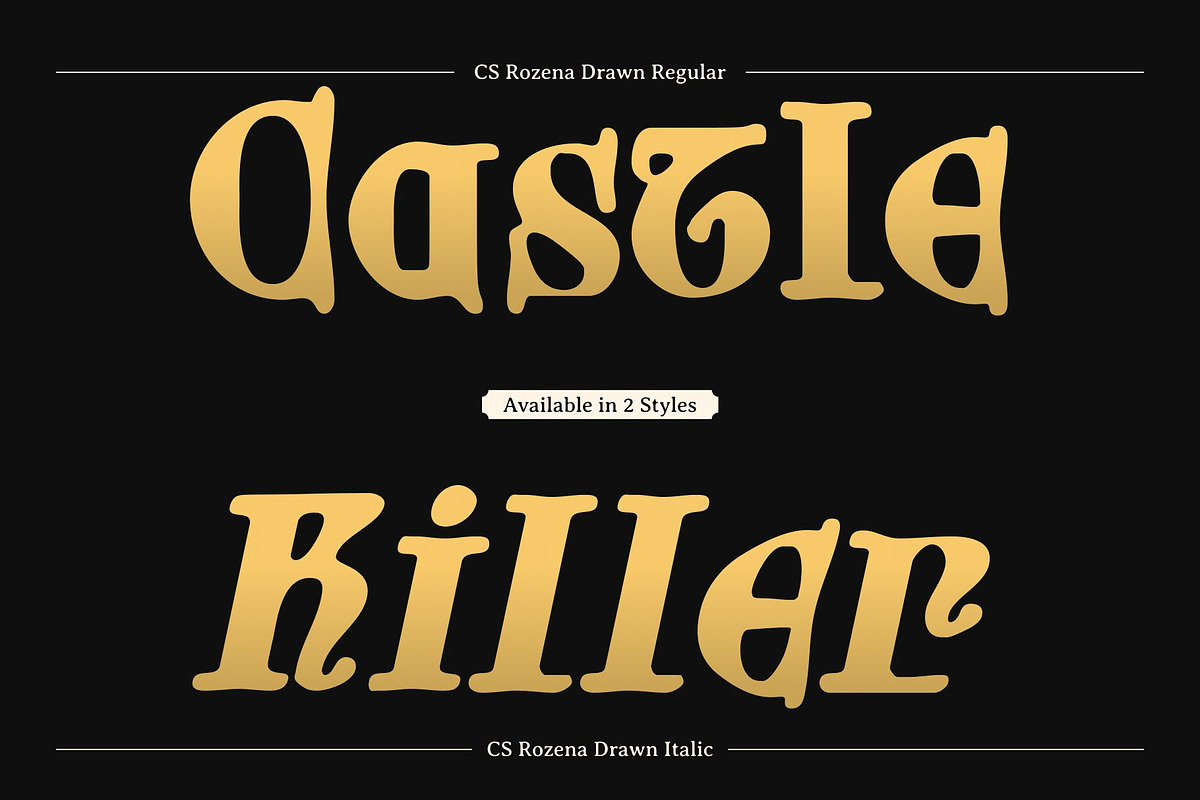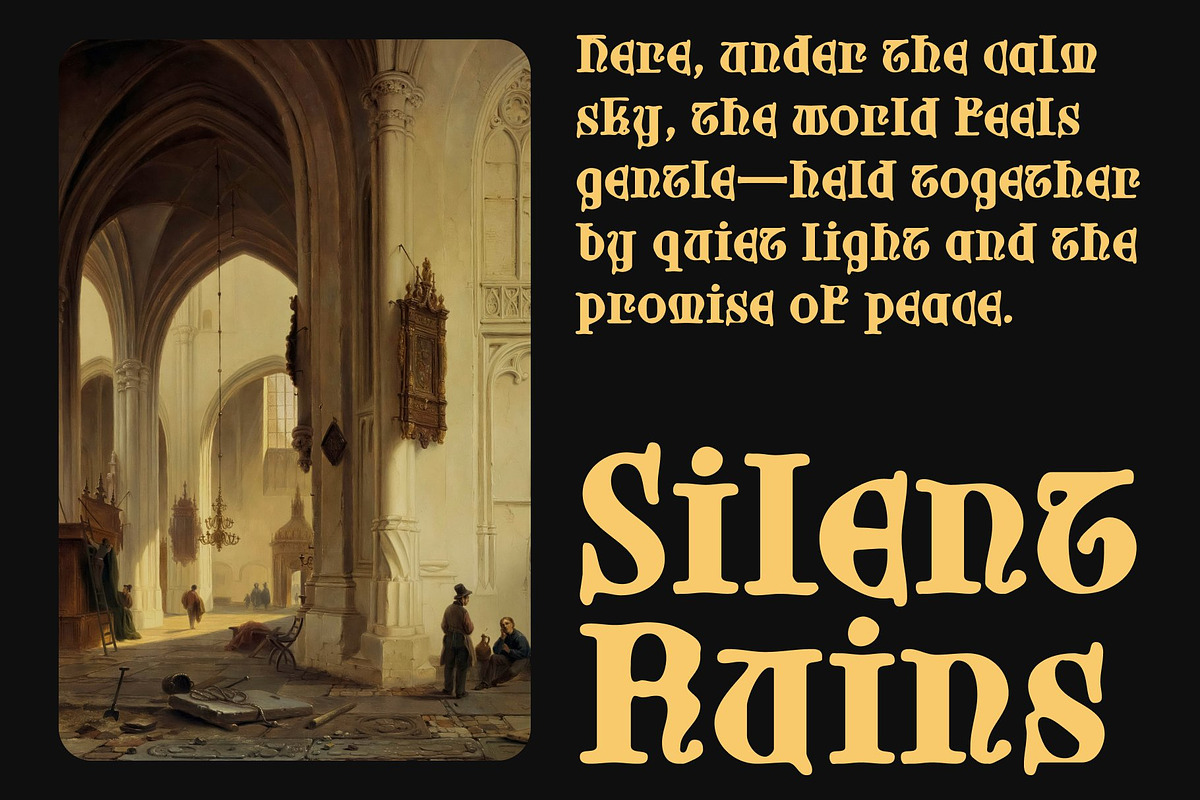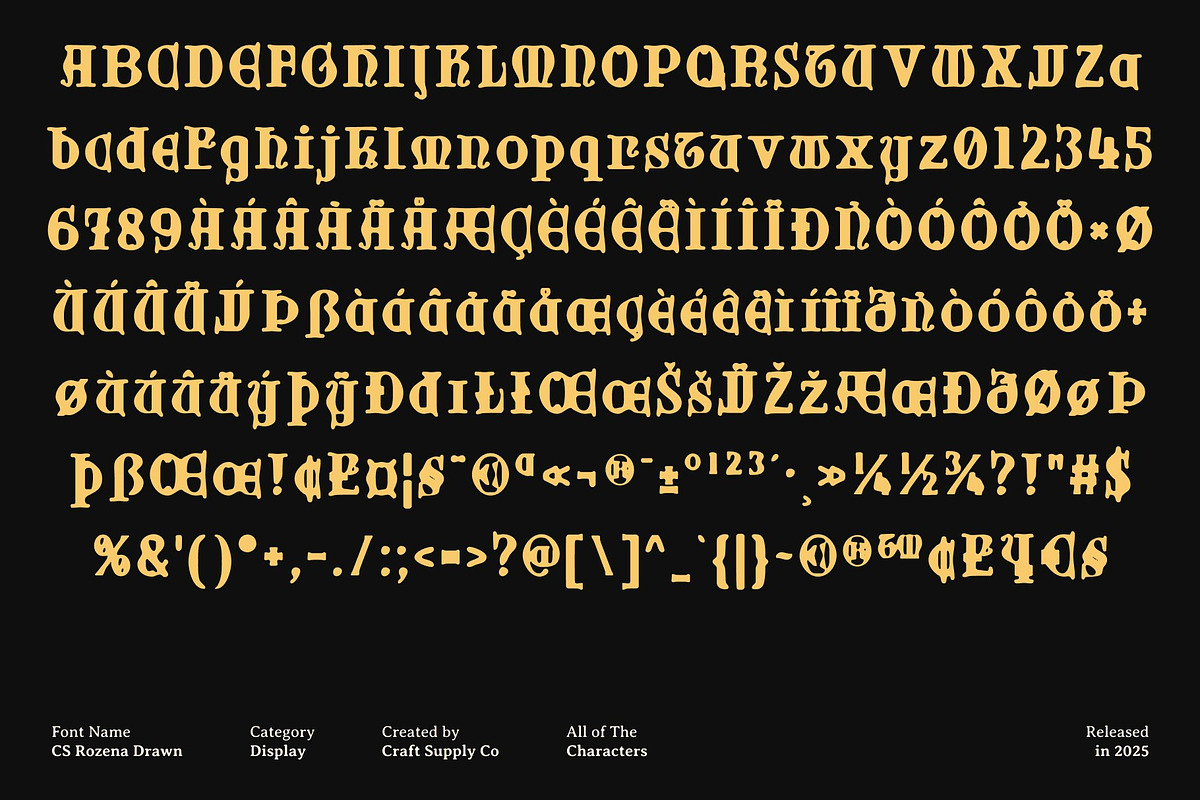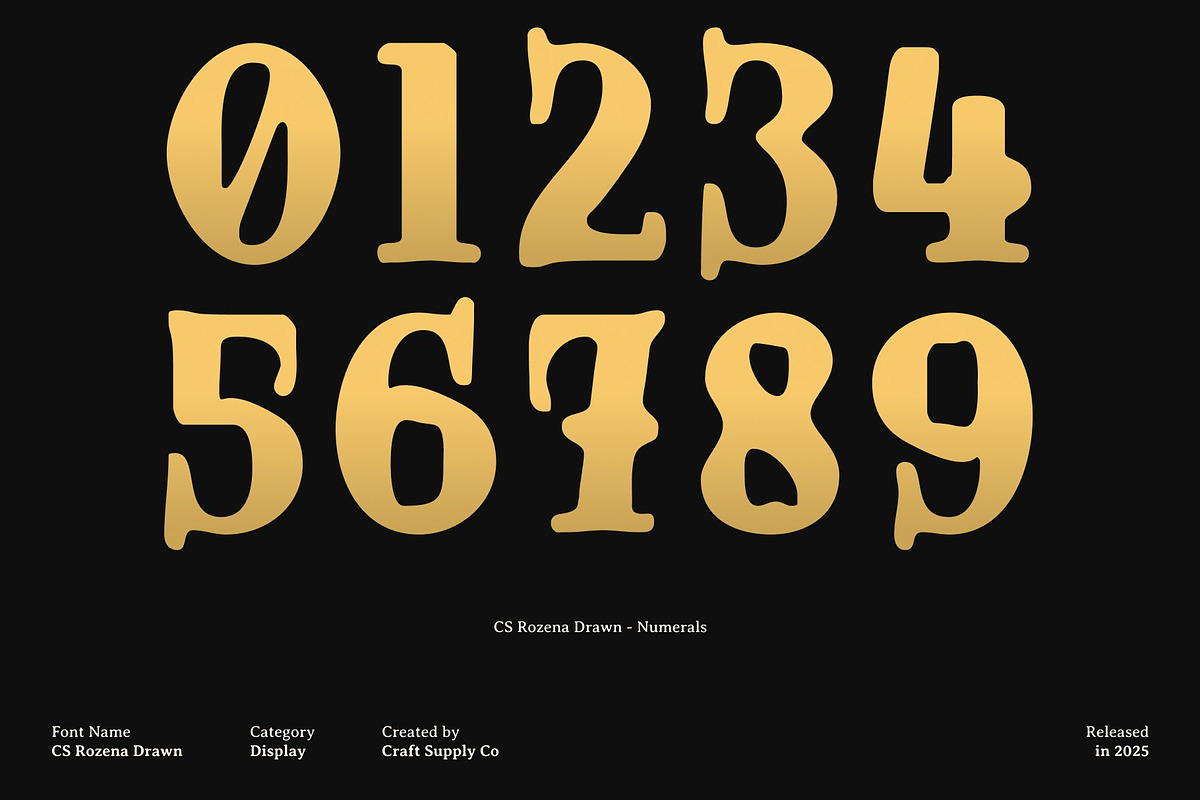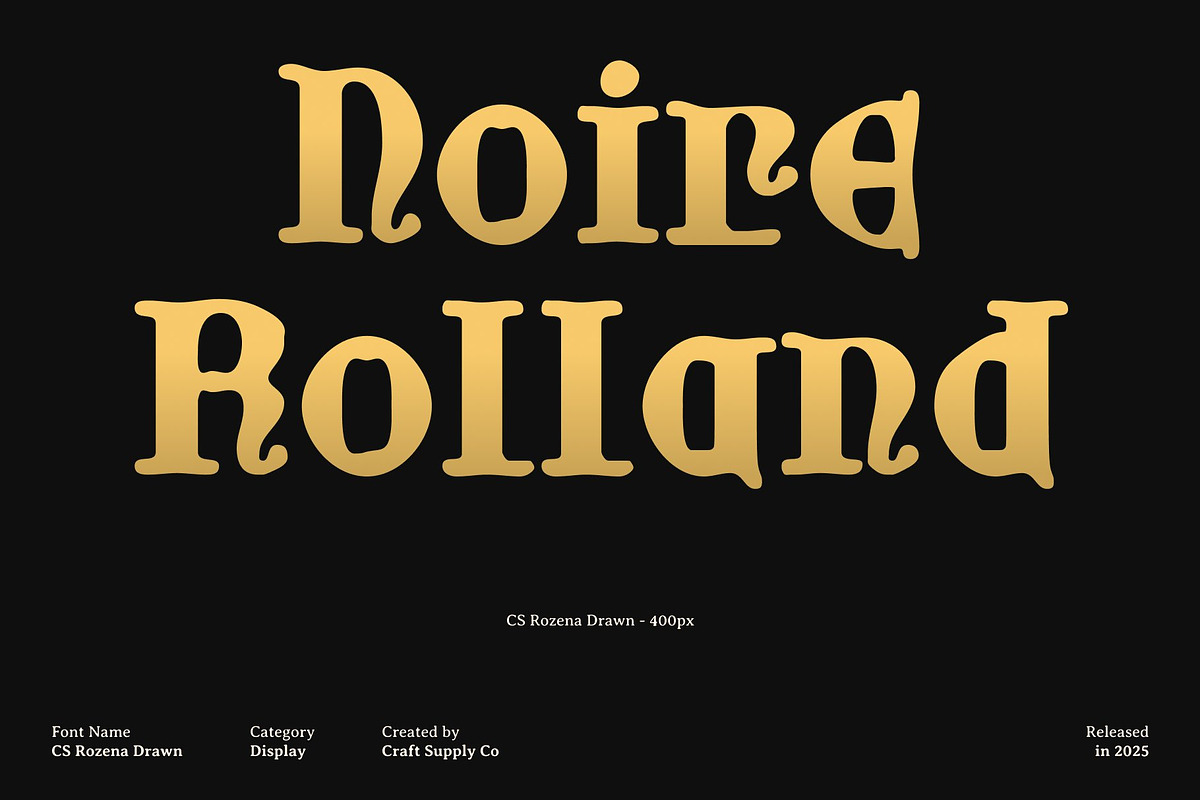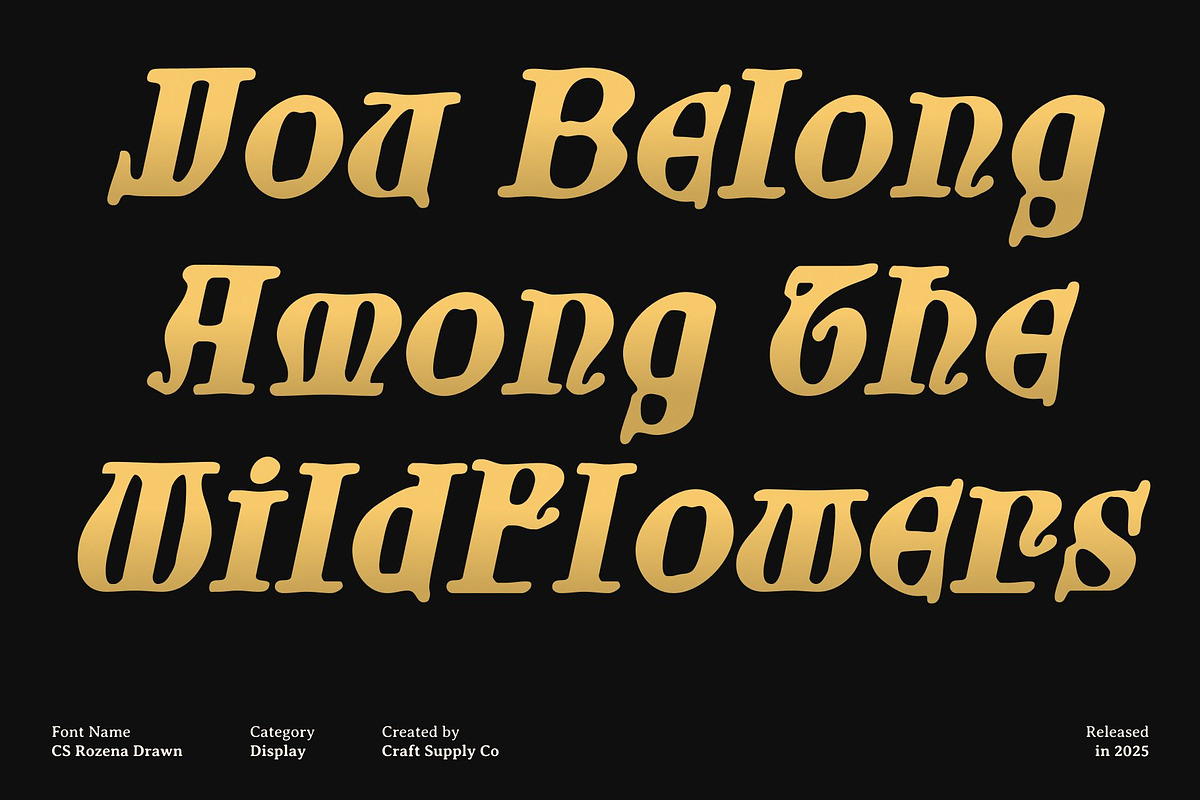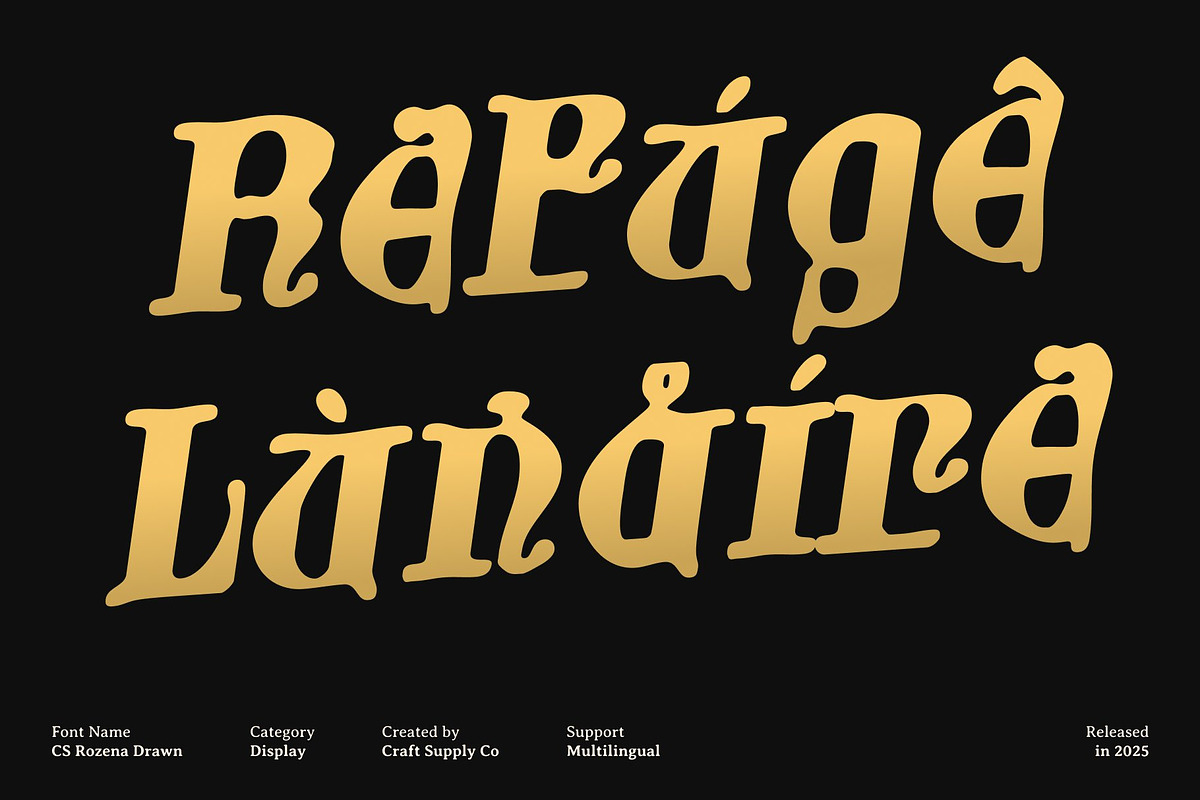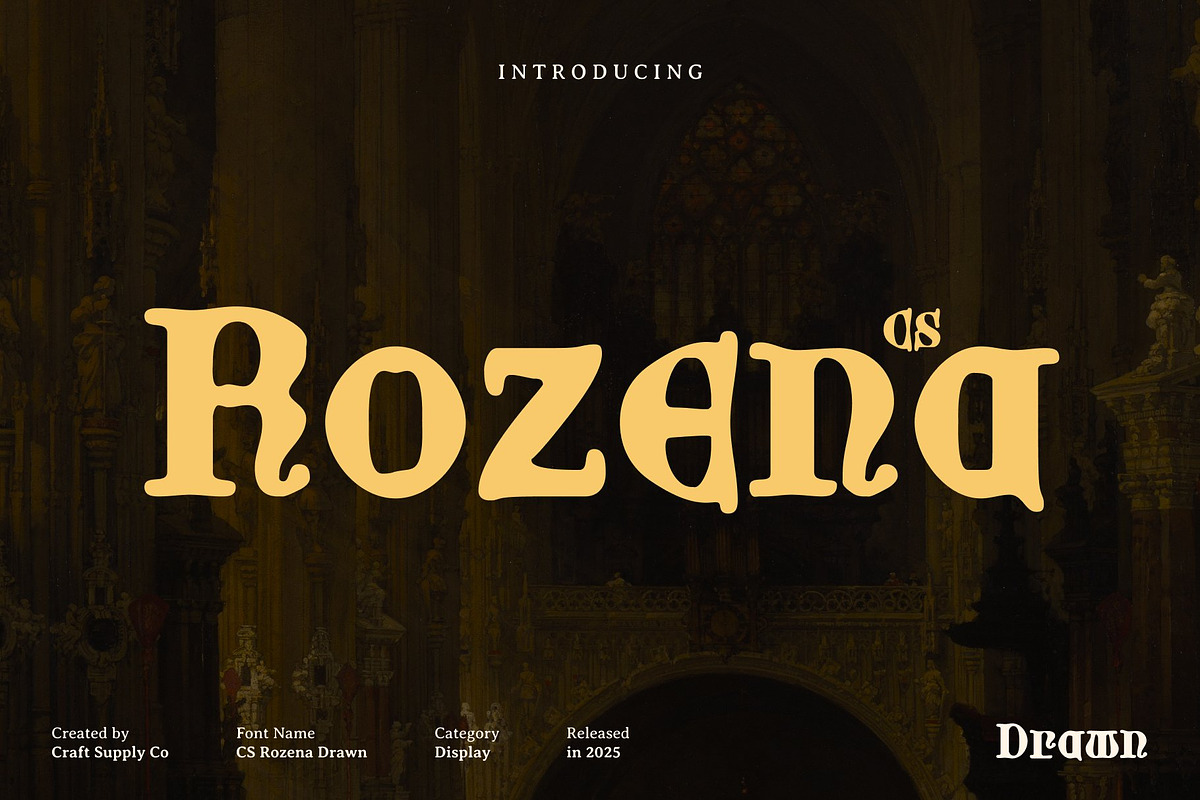
CS Rozena Drawn
CS Rozena Drawn – Classic Uncial Display Font with Handcrafted Character
Curved Letterforms Inspired by Ancient Manuscripts This is a display font built on classic uncial letterforms, featuring gracefully curved shapes inspired by historical manuscripts. Its design evokes a sense of tradition, authority, and timeless elegance, making it perfect for projects that require a sophisticated and historically informed typographic presence.
Classical Structure with Strong Visual Impact The font’s well-proportioned uncial forms provide both readability and visual authority. Each letter reflects classical typographic principles while maintaining a bold, expressive style suitable for headlines, posters, and display applications. Its striking shapes ensure it commands attention while retaining a refined, historical aesthetic.
Hand-Drawn Texture for Artistic Depth The subtle drawn effect adds a handcrafted texture to the structured uncial forms, giving the font depth, personality, and an organic feel. This artistic touch softens the rigidity of classical shapes, making the letters appear more lively, approachable, and visually engaging. It introduces a unique handcrafted nuance that elevates the font’s overall expressiveness.
Ideal for Traditional, Creative, and Historical Designs This font perfect for posters, branding, editorial layouts, cultural projects, and creative designs that aim to highlight historical charm and artistic sophistication. By combining classical uncial elegance with handcrafted texture, the font delivers a timeless yet distinctive voice, bridging tradition and artistic expression.